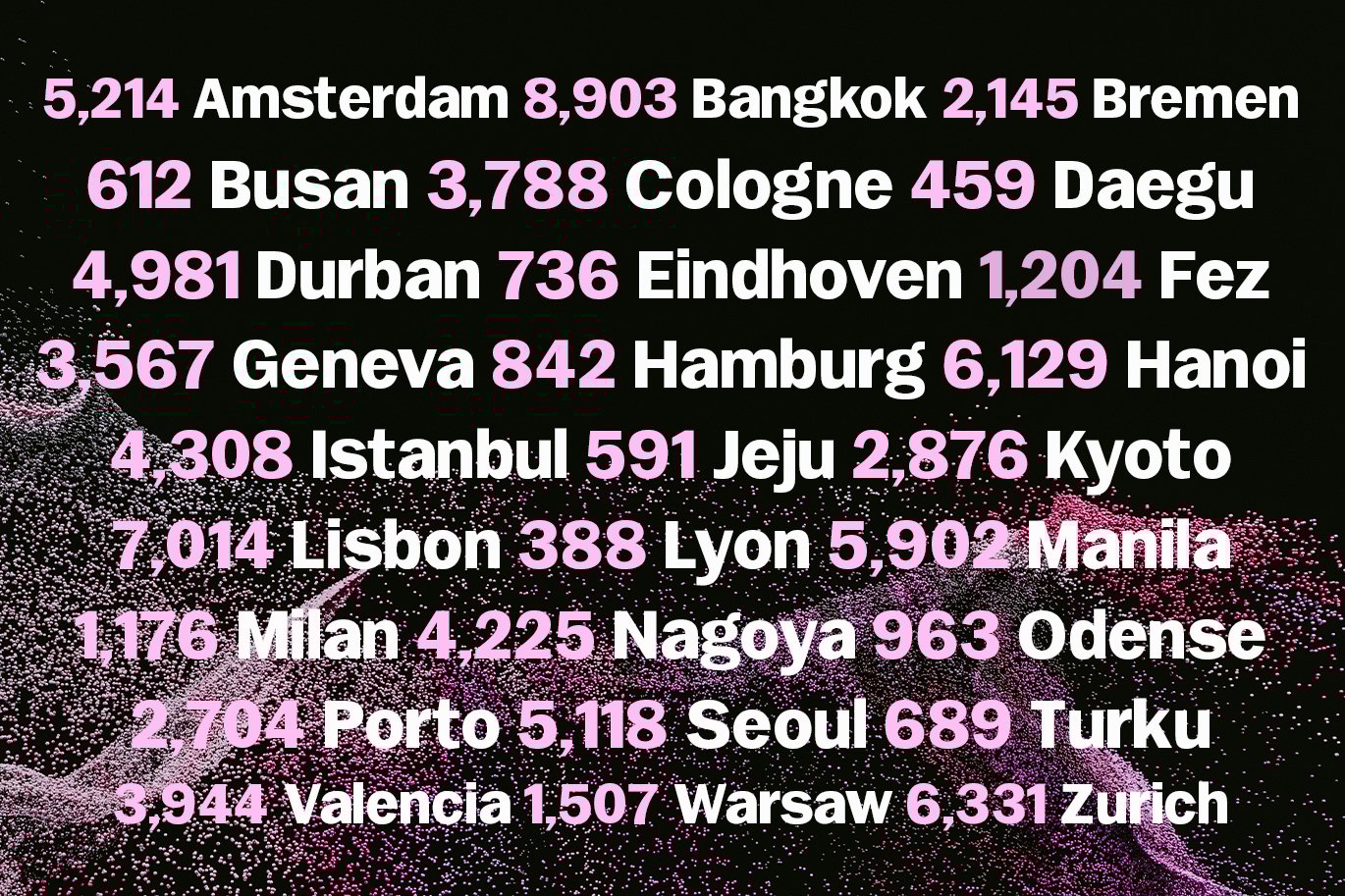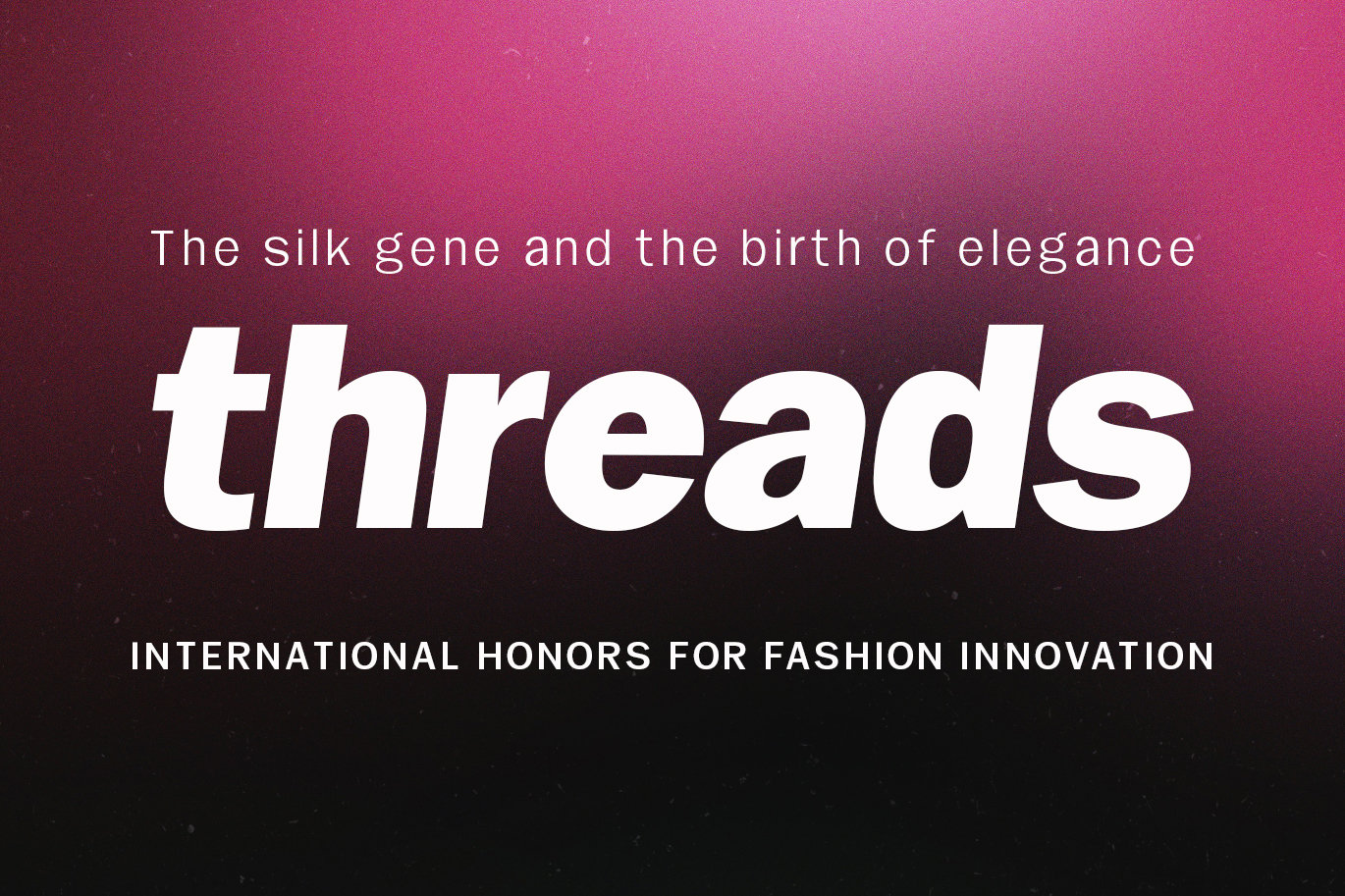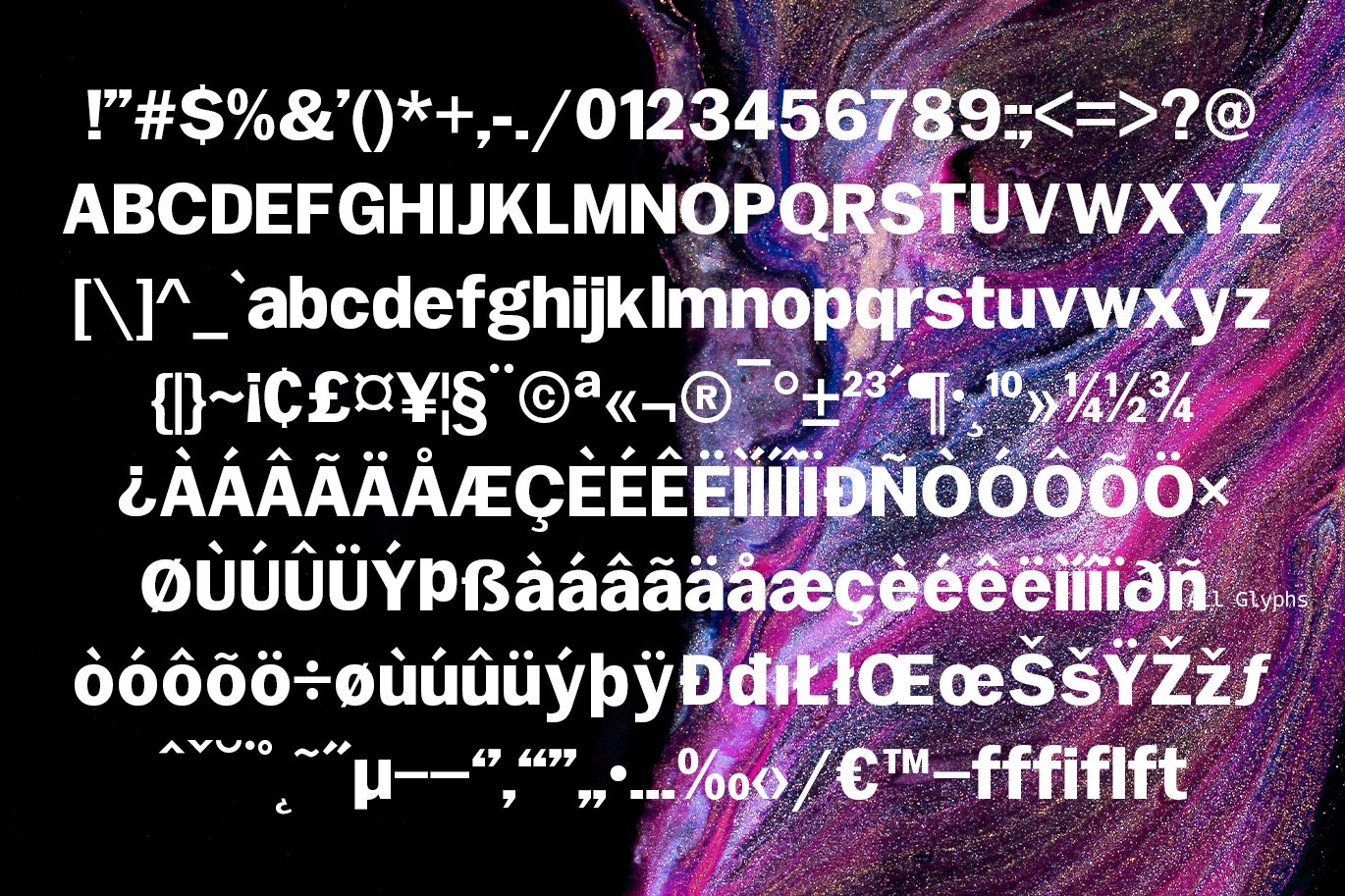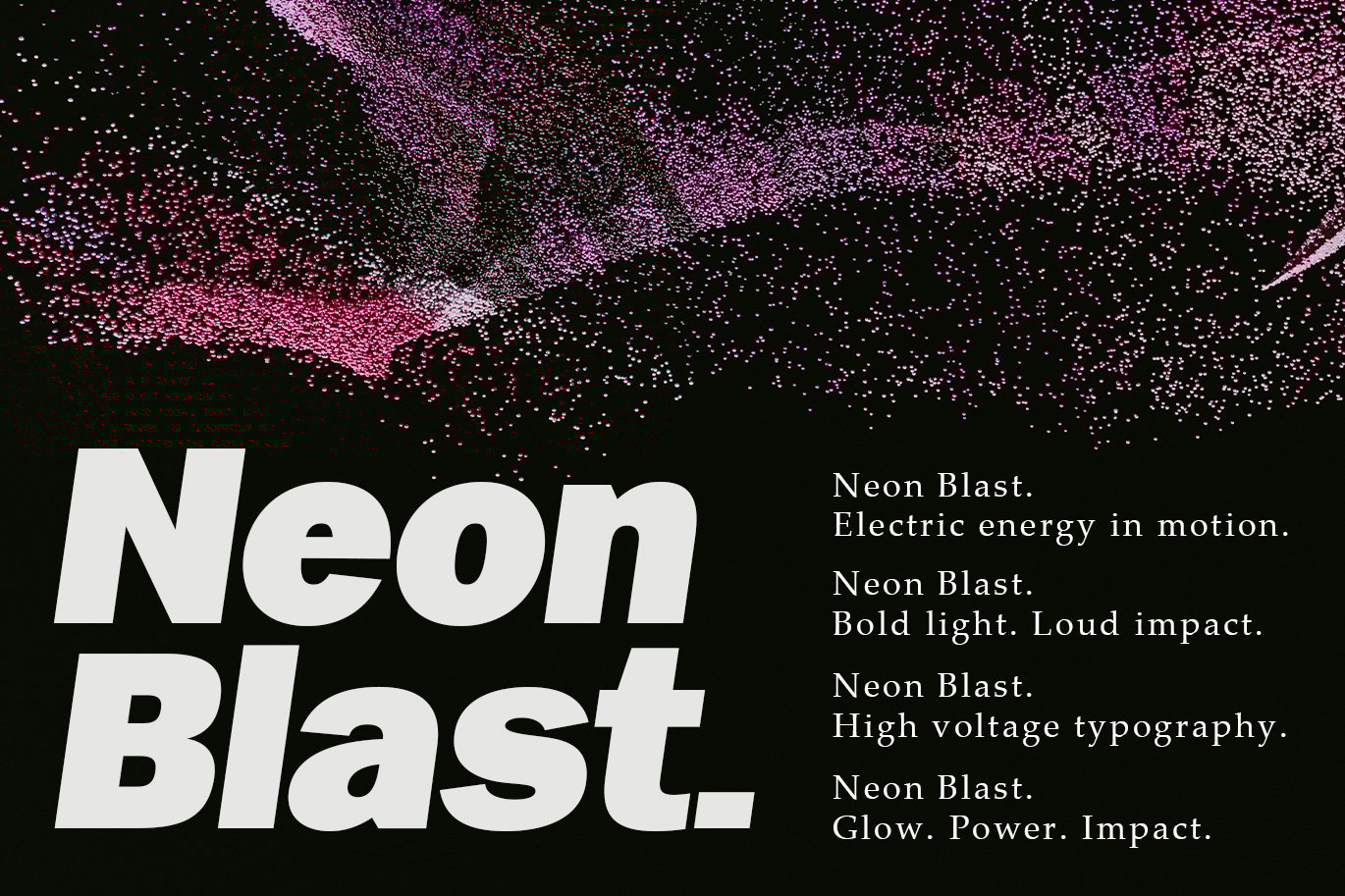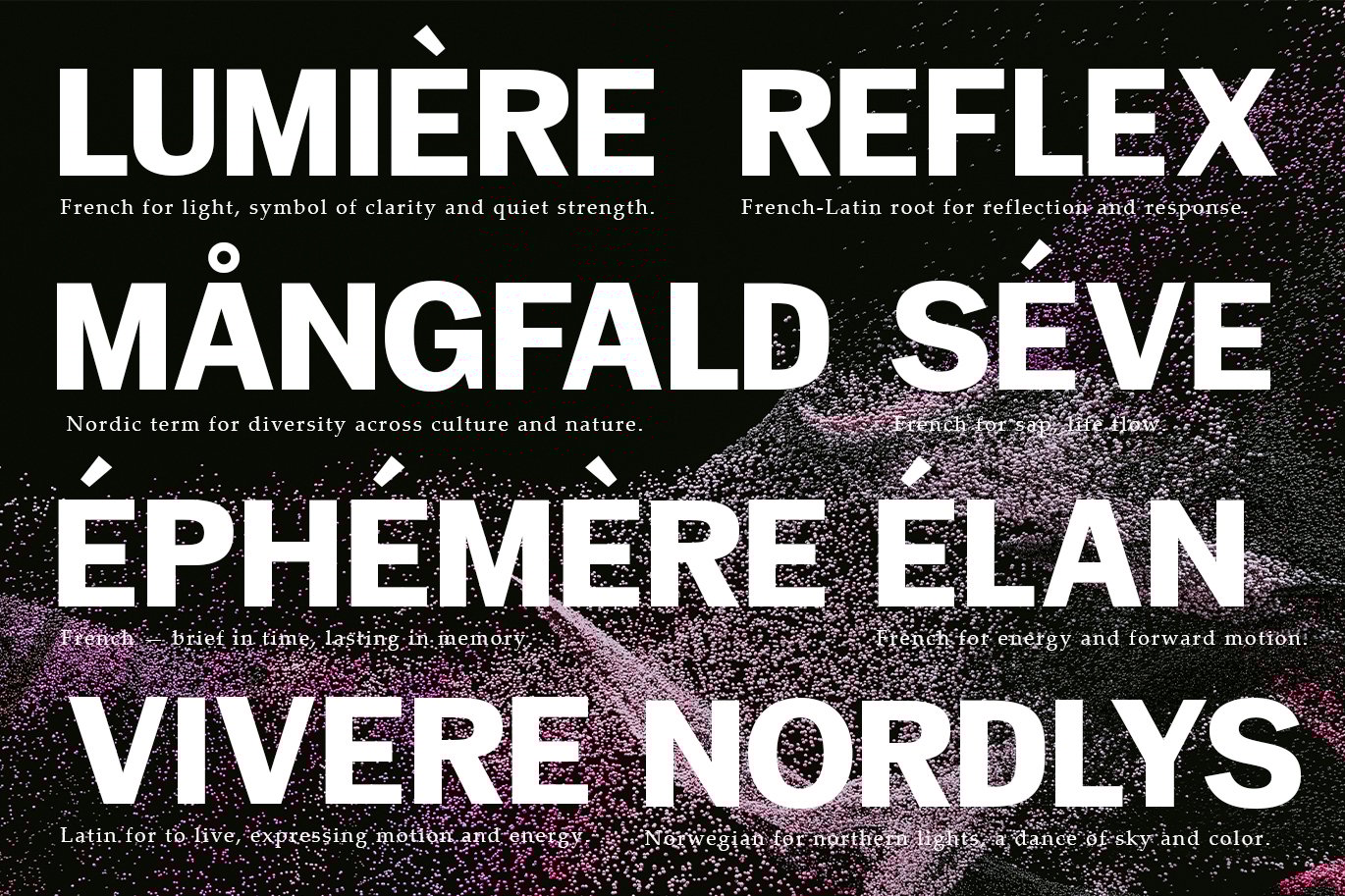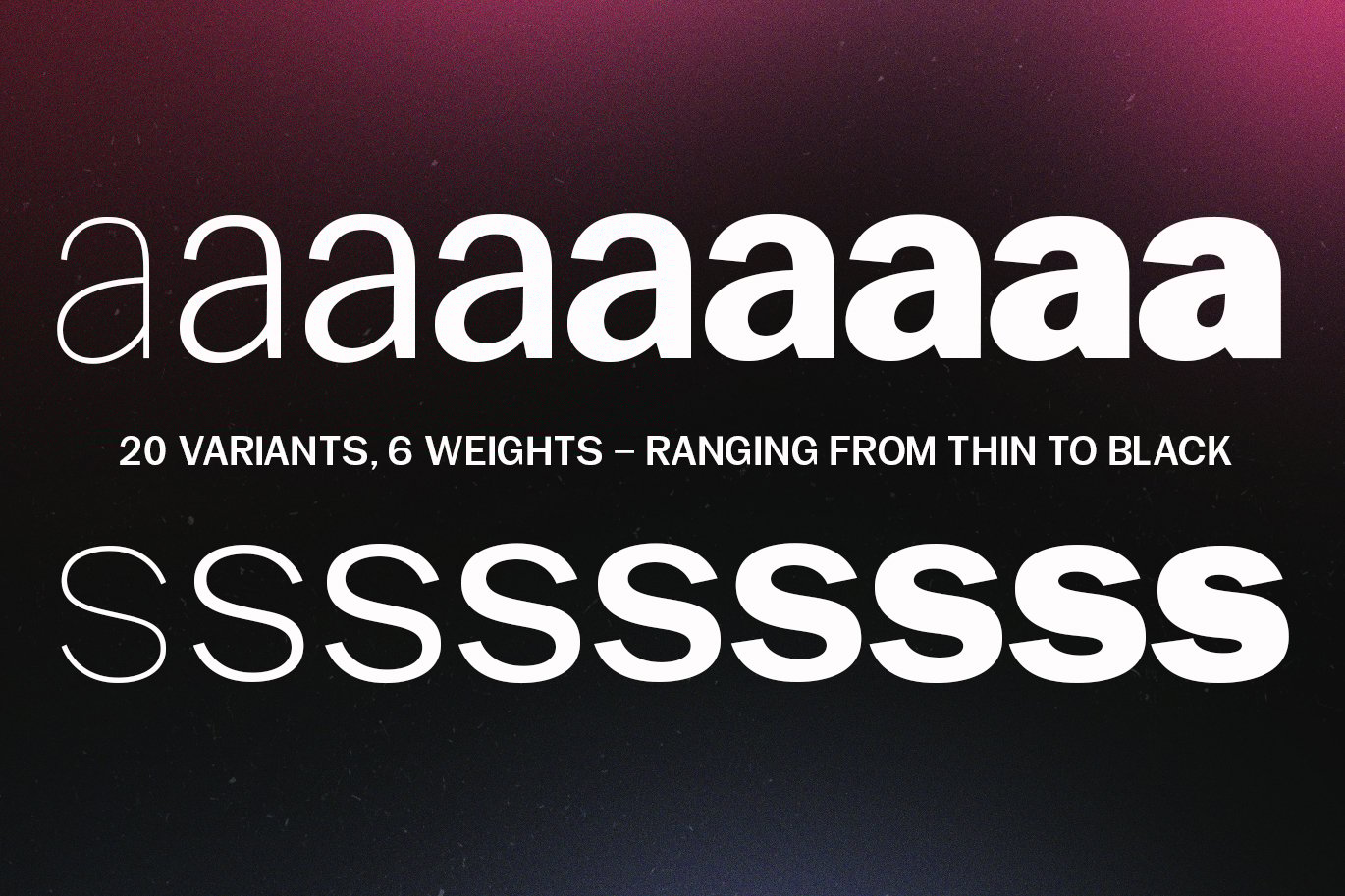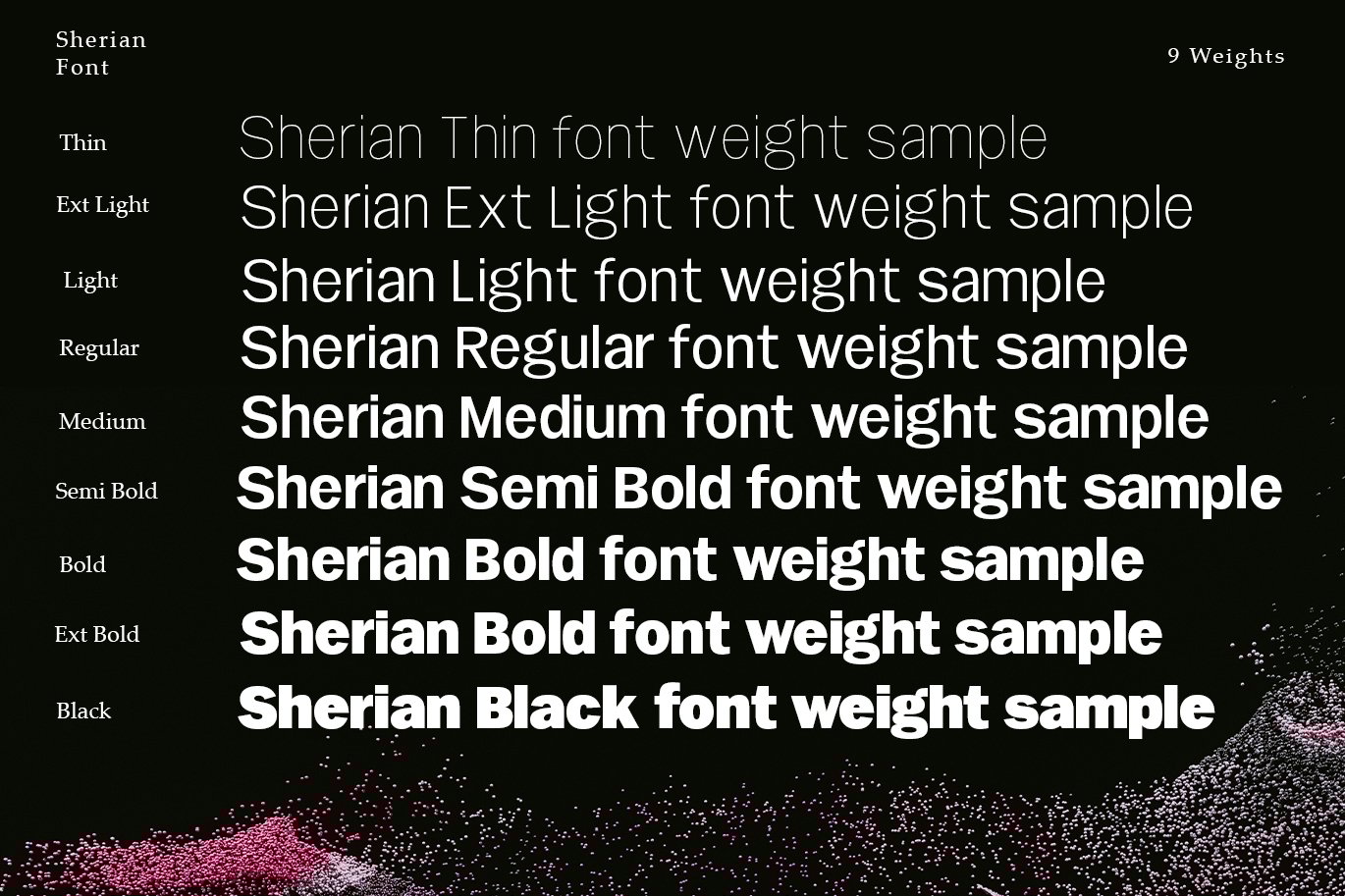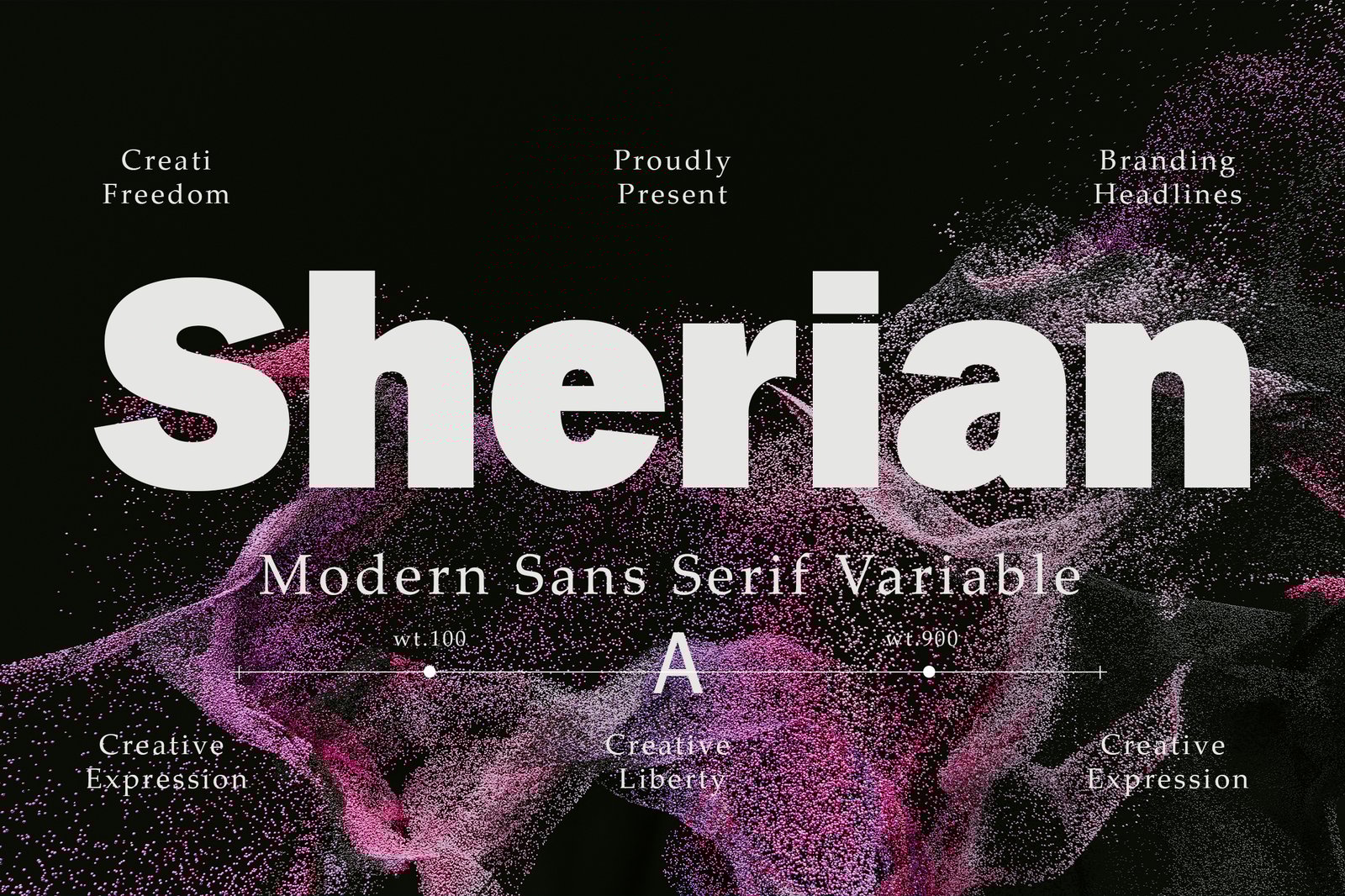
Sherian — Modern Variable Sans-Serif
Meet Sherian, a versatile, modern sans-serif variable font family designed for total creative control. From sleek thin weights for elegant branding to bold, attention-grabbing headlines, Sherian adapts seamlessly with smooth weight transitions and refined geometry.
Key Features
• Seamless Weight Transitions: Access any weight between $wght$ 100 and 900 using the variable slider.
• Dual Style: Includes a full set of Obliques for dynamic emphasis.
• Optimal Readability: A balanced x-height and modular baseline make it ideal for data-rich graphics and small-screen UI.
• Creative Versatility: Perfect for high-end editorial layouts, corporate branding, or digital product design.